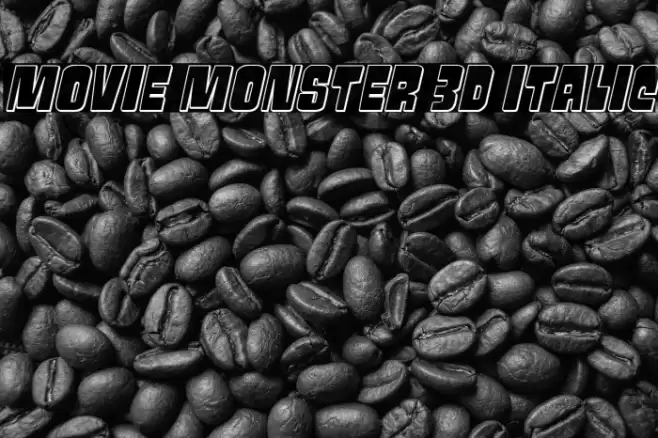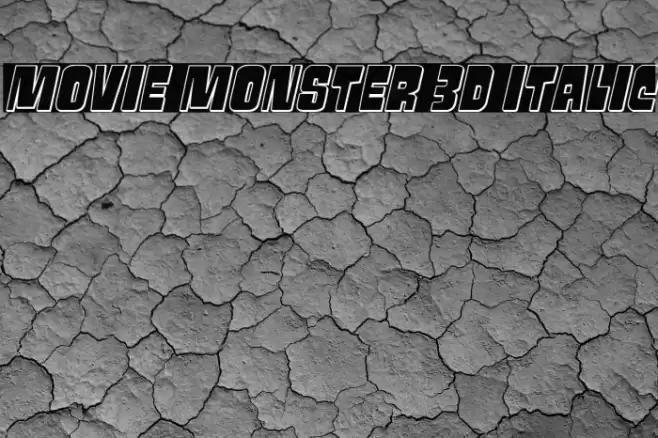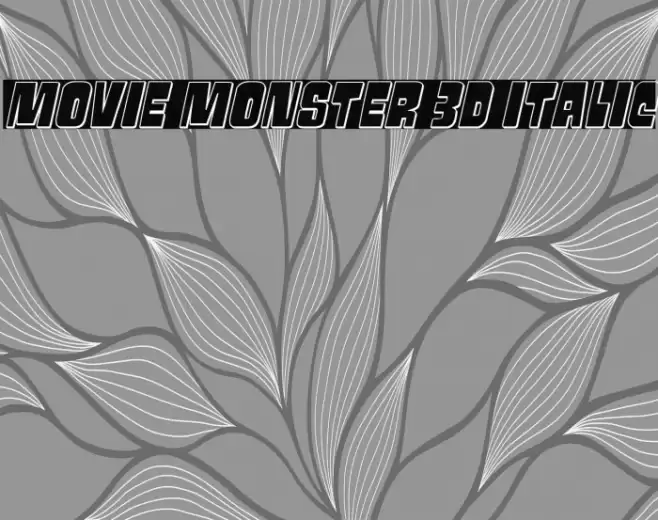
Movie Monster 3D Italic Font
Movie Monster 3D Italic Description
This font features a bold, three-dimensional style with a strong italic slant, giving it a dynamic and impactful appearance. The characters are outlined, creating a sense of depth and movement, reminiscent of classic movie posters or comic book titles. The uppercase letters are particularly striking, with sharp angles and a blocky structure that enhances their boldness. The numbers and special characters maintain this cohesive style, ensuring versatility across different uses. The font's design is both modern and nostalgic, making it suitable for projects that require a dramatic and eye-catching typeface.
A bold, 3D italic font with outlined characters, ideal for dynamic and impactful designs from Regular fonts.
- Proposed Projects: Perfect for movie posters, comic book covers, video game titles, and any project needing a bold, dramatic typeface.